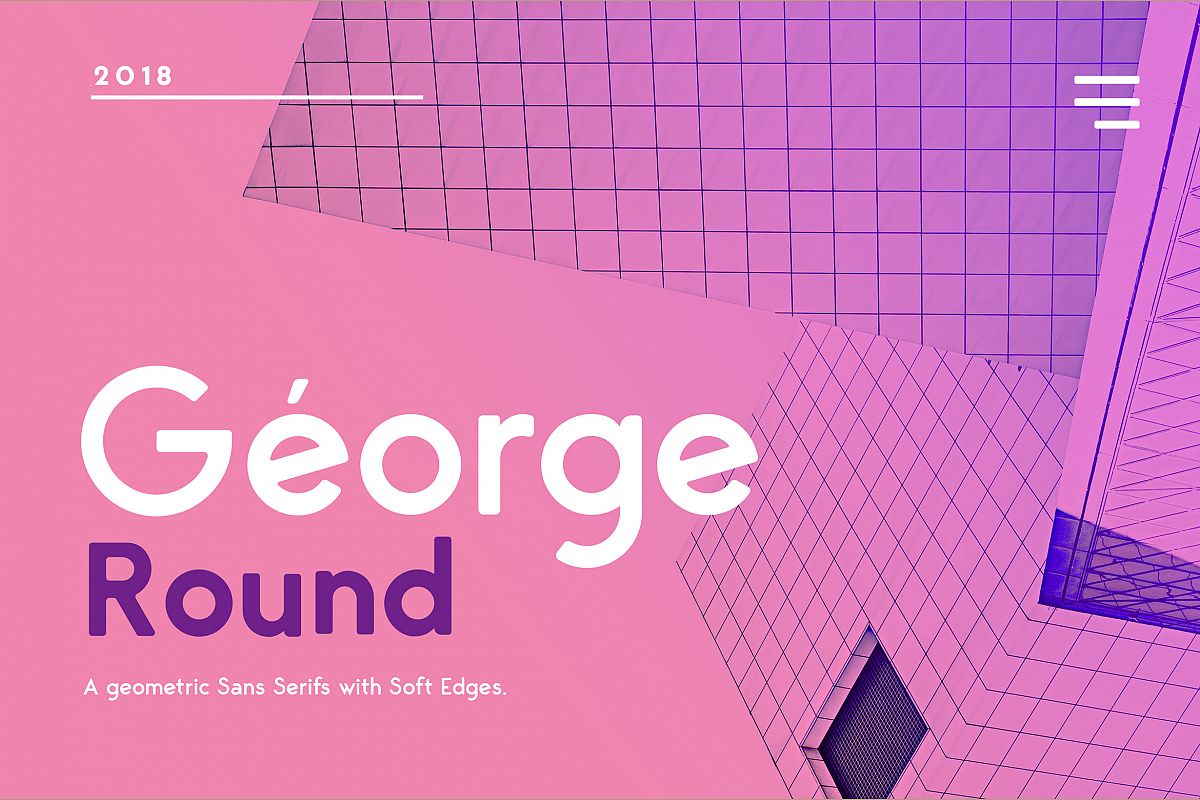
George Round 8 Fonts Round Edge Geometric Typeface
George Round v1.5 is an Elegant contemporary sans serif font family of 8 fonts with Soft edges,. Designed with clean and stylized modern European geometry with harmonious appearance for both texts and headlines. George Round is perfect companion for branding, editorial and signage, also works great for bigger applications. George Round also includes many language support.